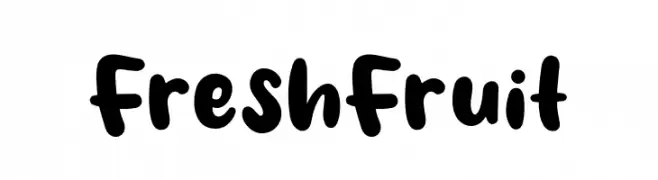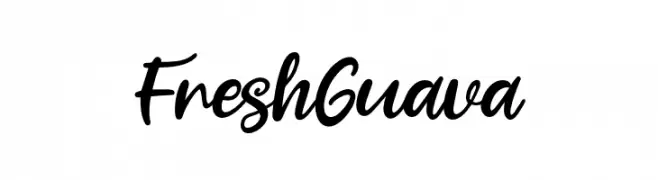
A decorative font with abstract and illustrative characters, perfect for creative projects.
An intricate, decorative font with high contrast and elegant flourishes.
A playful, modern outline font with geometric and consistent strokes.
A bold, playful font with irregular, organic shapes and a hand-cut appearance.
A modern, light, and italic sans-serif font with medium contrast and normal spacing.
A graffiti-style font using hand gestures to represent letters and numbers.
A playful, hand-drawn font with thin, elongated characters and a whimsical style.
A playful, modern italic font with thin, elongated strokes and a dynamic appearance.
A playful and bold font with unique curves and flourishes.
A playful, geometric font with dot embellishments and thin strokes.
A bold, angular font with a dynamic, geometric style.
A modern, rounded sans-serif font with a clean and friendly appearance.
A playful, nature-inspired font with characters formed by leaf-like elements.
A modern, geometric font with rounded edges and a clean, structured appearance.
A decorative font with leaf motifs integrated into each character, offering a nature-inspired look.
A modern, geometric font with outlined characters and a minimalist style.
A modern, decorative font with dots and lines creating a playful, abstract style.
A modern, playful font with smooth, rounded edges and creative character designs.
A bold, decorative font with intricate and artistic strokes.
A modern, abstract font with circular and symmetrical design elements.
A playful and abstract font with geometric shapes and unconventional angles.